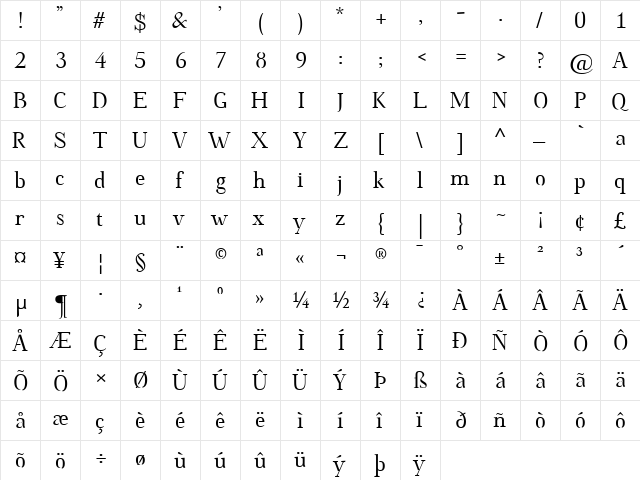
Omologo Personal Regular
| Foundry | Savio Bellini |
| Designer | Savio Bellini |
Design Context for Omologo Personal Typeface
Omologo Personal offers clean, dependable letterforms without strong stylistic allegiance, making it a practical choice for designers who need flexibility.